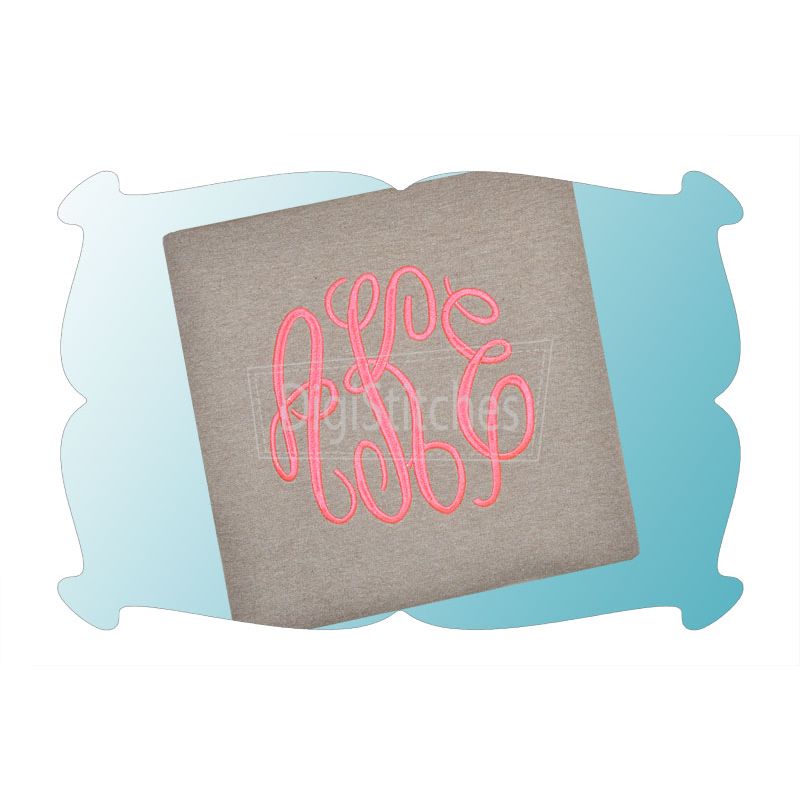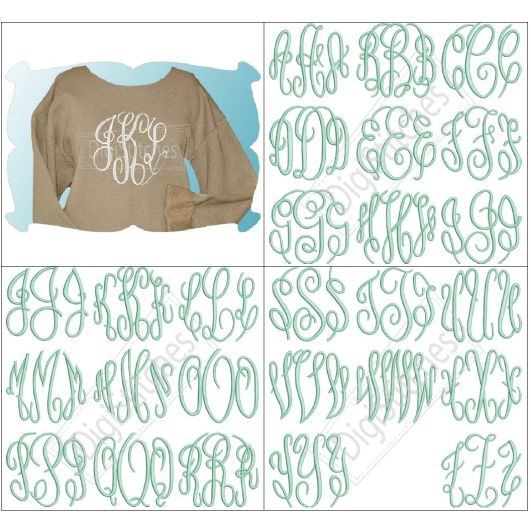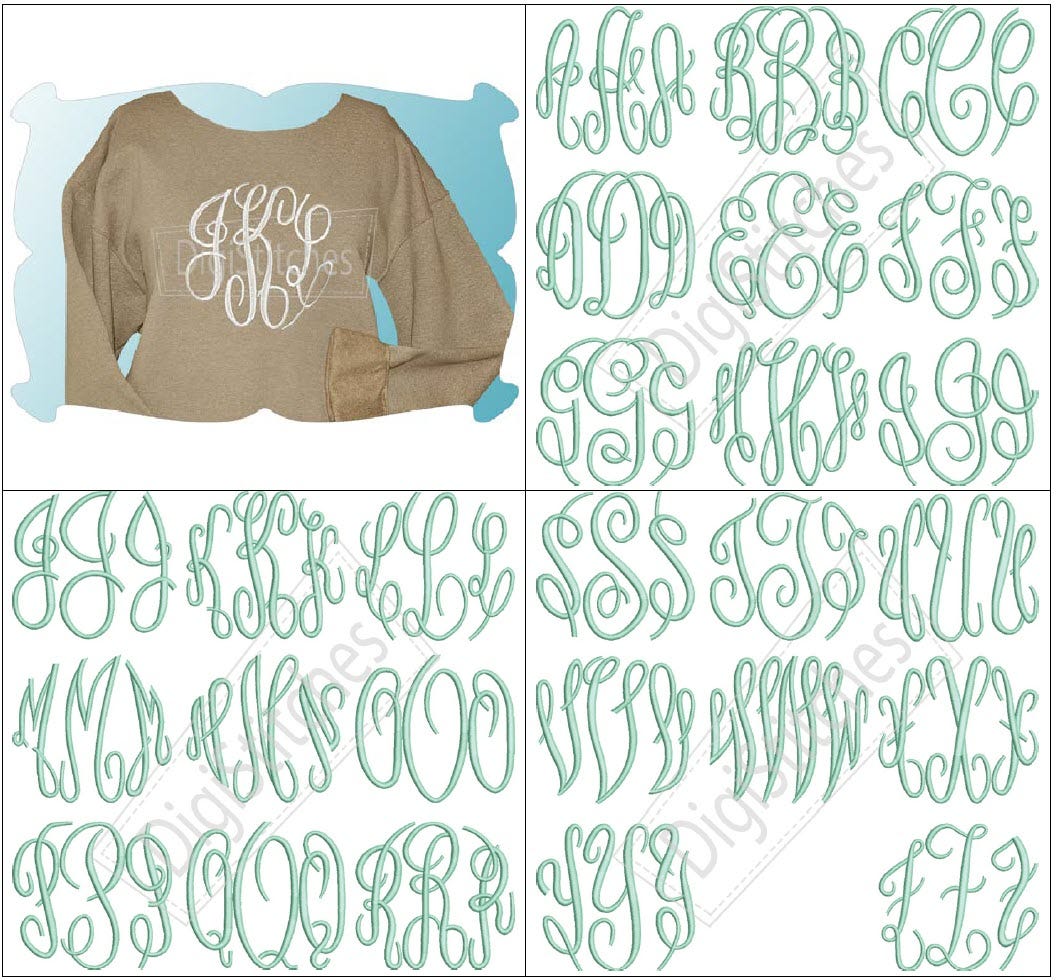
Circle Satin Stitch Monogram Embroidery Font
Circle Monogram Embroidery Font
A beautiful script monogram embroidery font that offers a quick stitch out as compared to other monogrammed fonts. We've also included PDF instructions with our methods for hooping/ stabilizers used/ whether or not to prewash and how to cut that sweatshirt (for a fun and stylish look) to ensure your sweatshirts look as good as ours both before and after laundering.
Capital letters A thru Z, with left, middle and right letters to form a circle as shown.